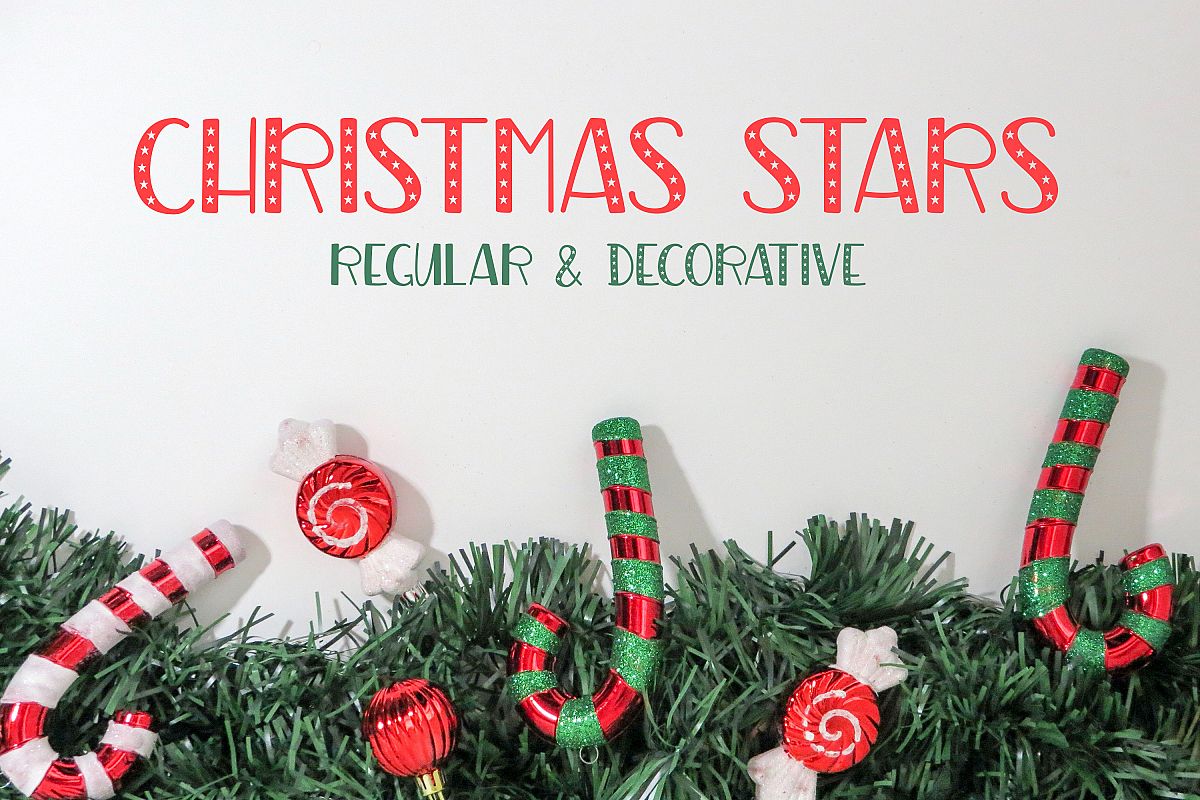
Christmas Stars
by Kristy Hatswell
Introducing Christmas Stars!
A cute handwritten pair of all-caps fonts - great for Christmas designs.
Christmas Stars Regular
Christmas Stars Decorative